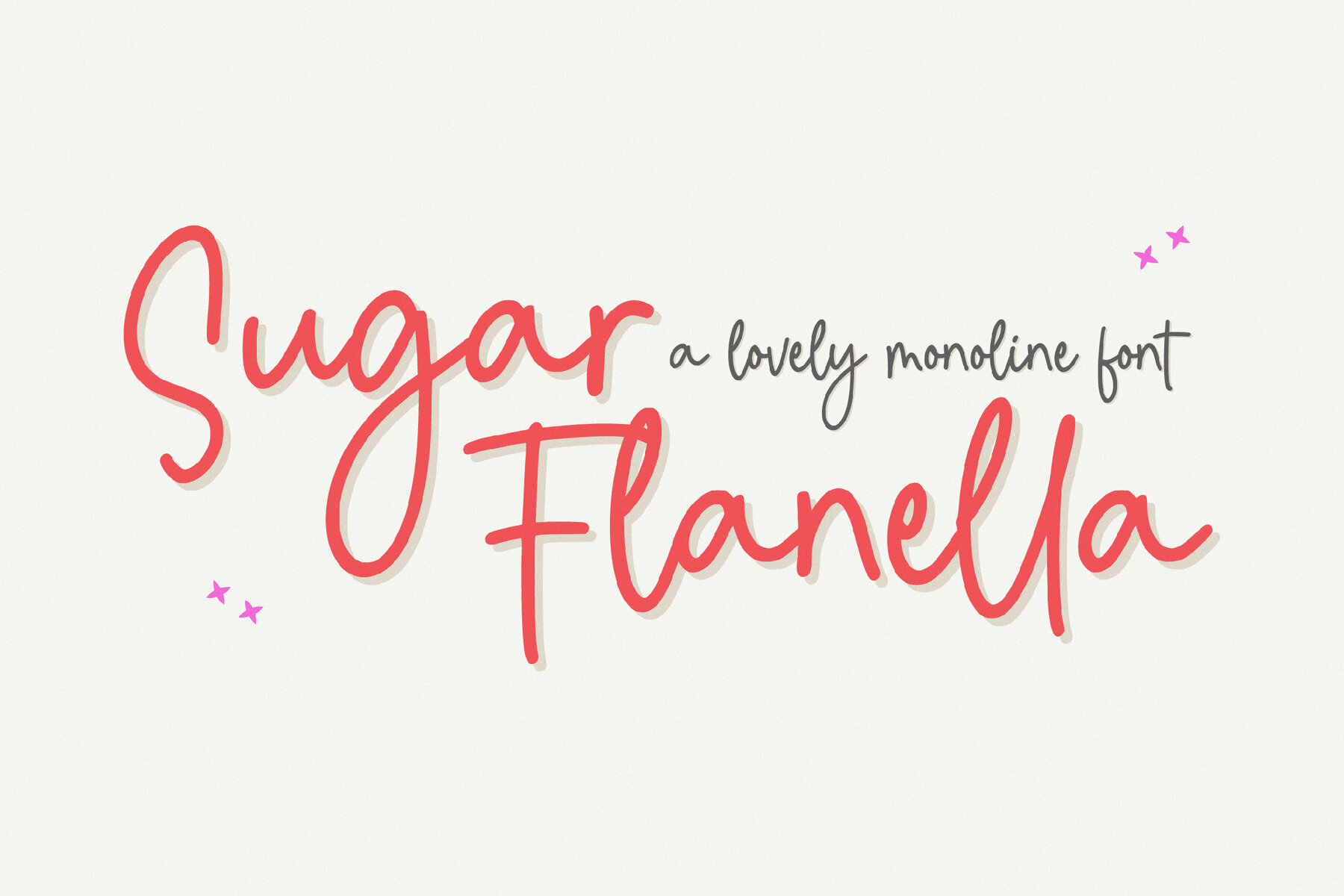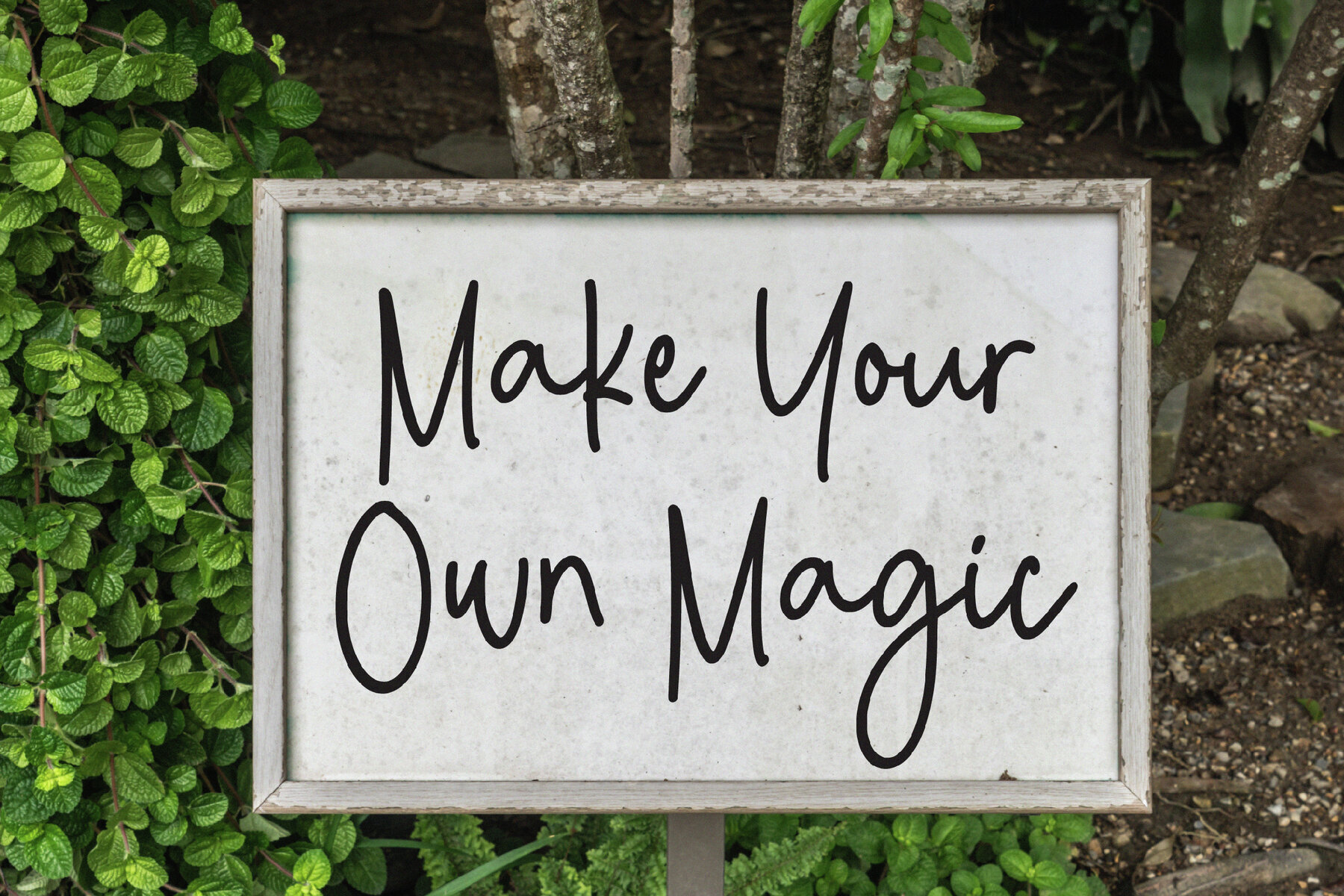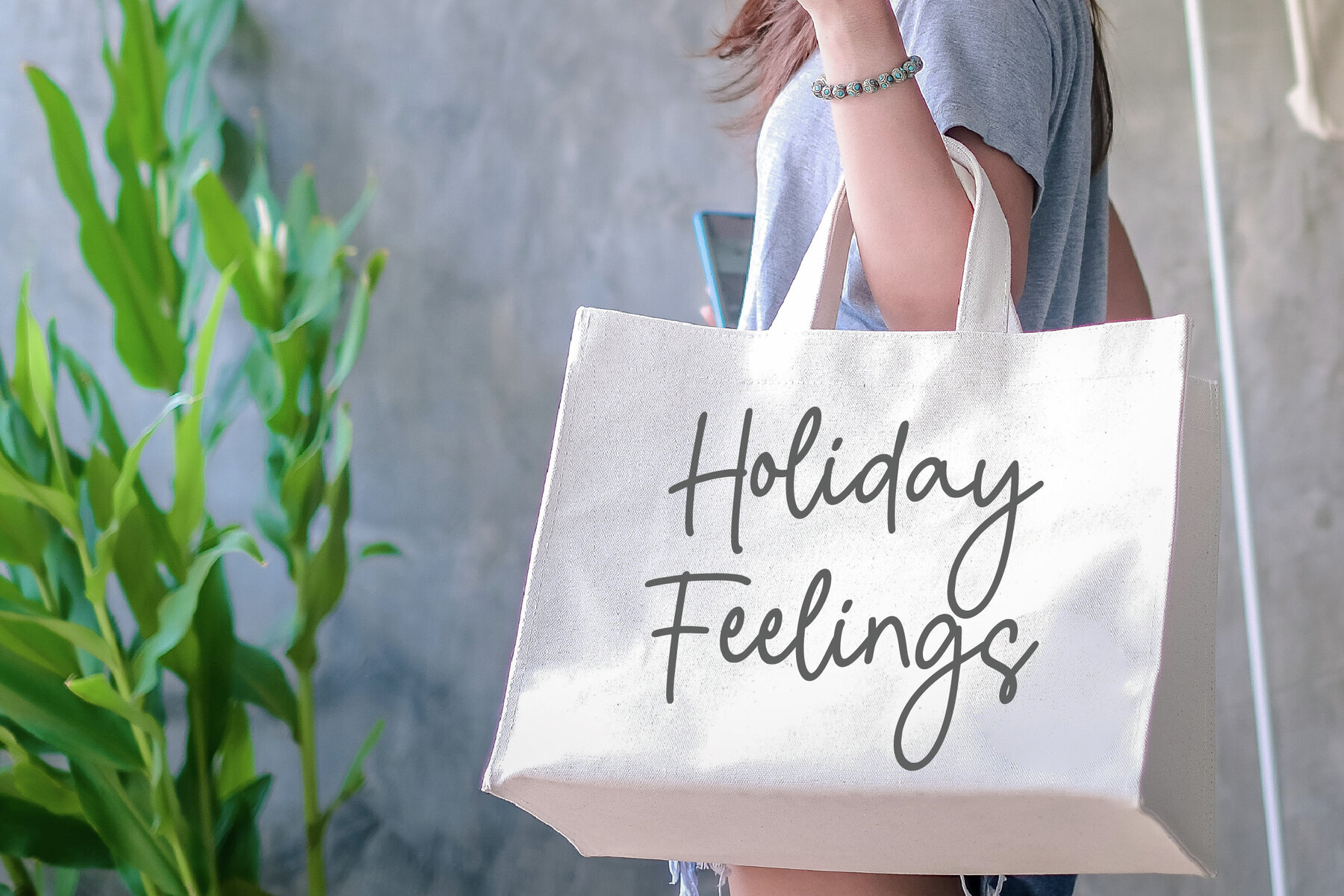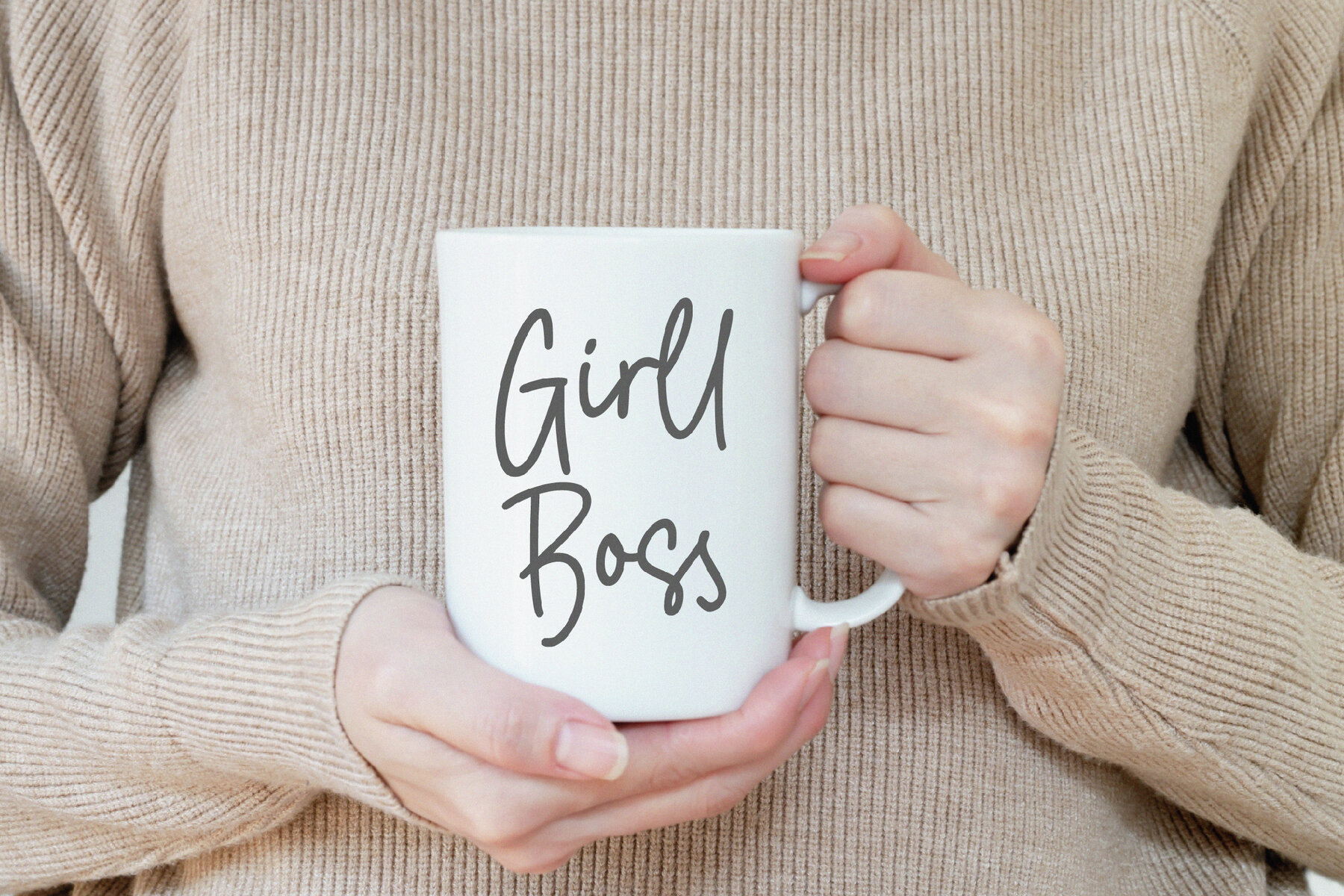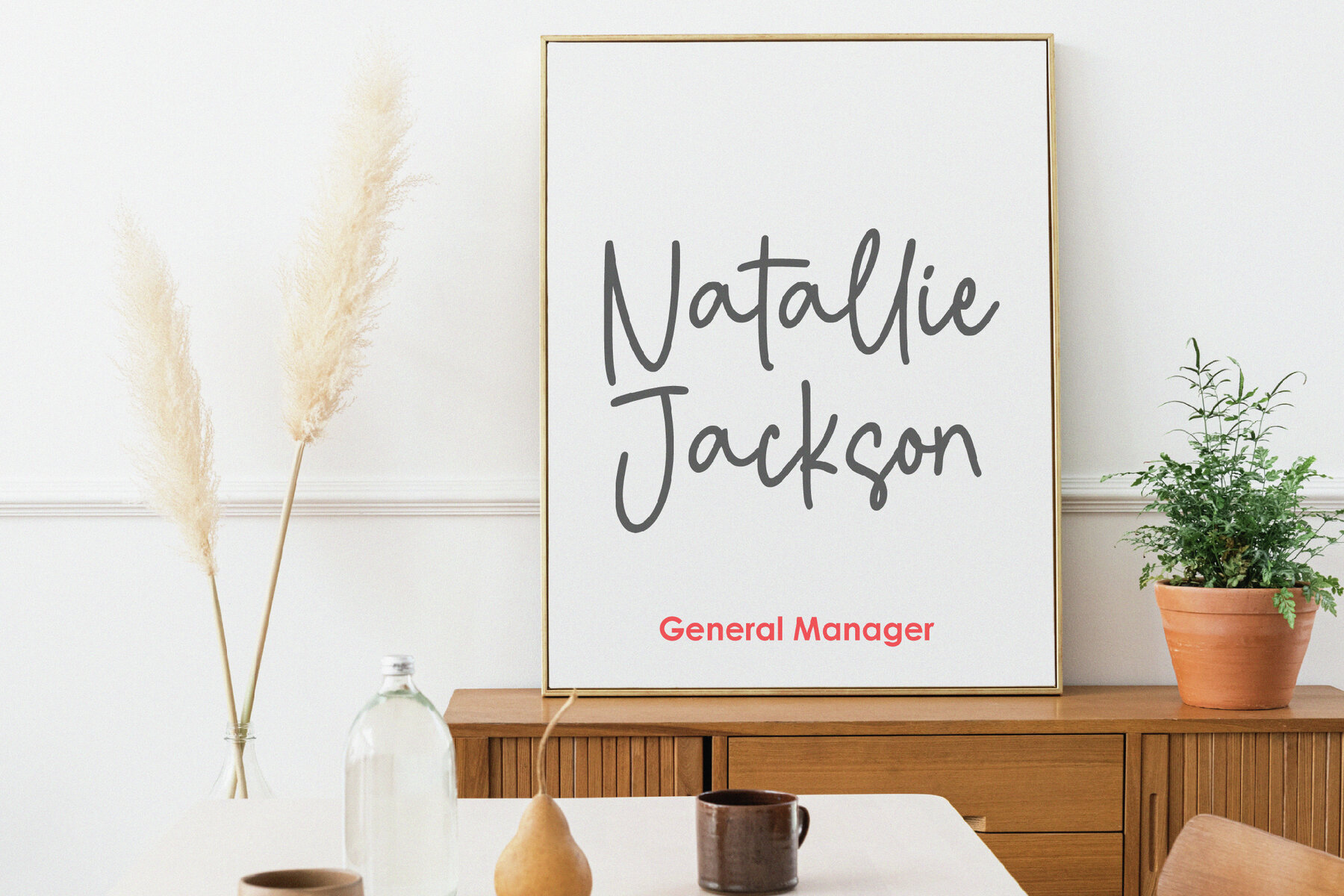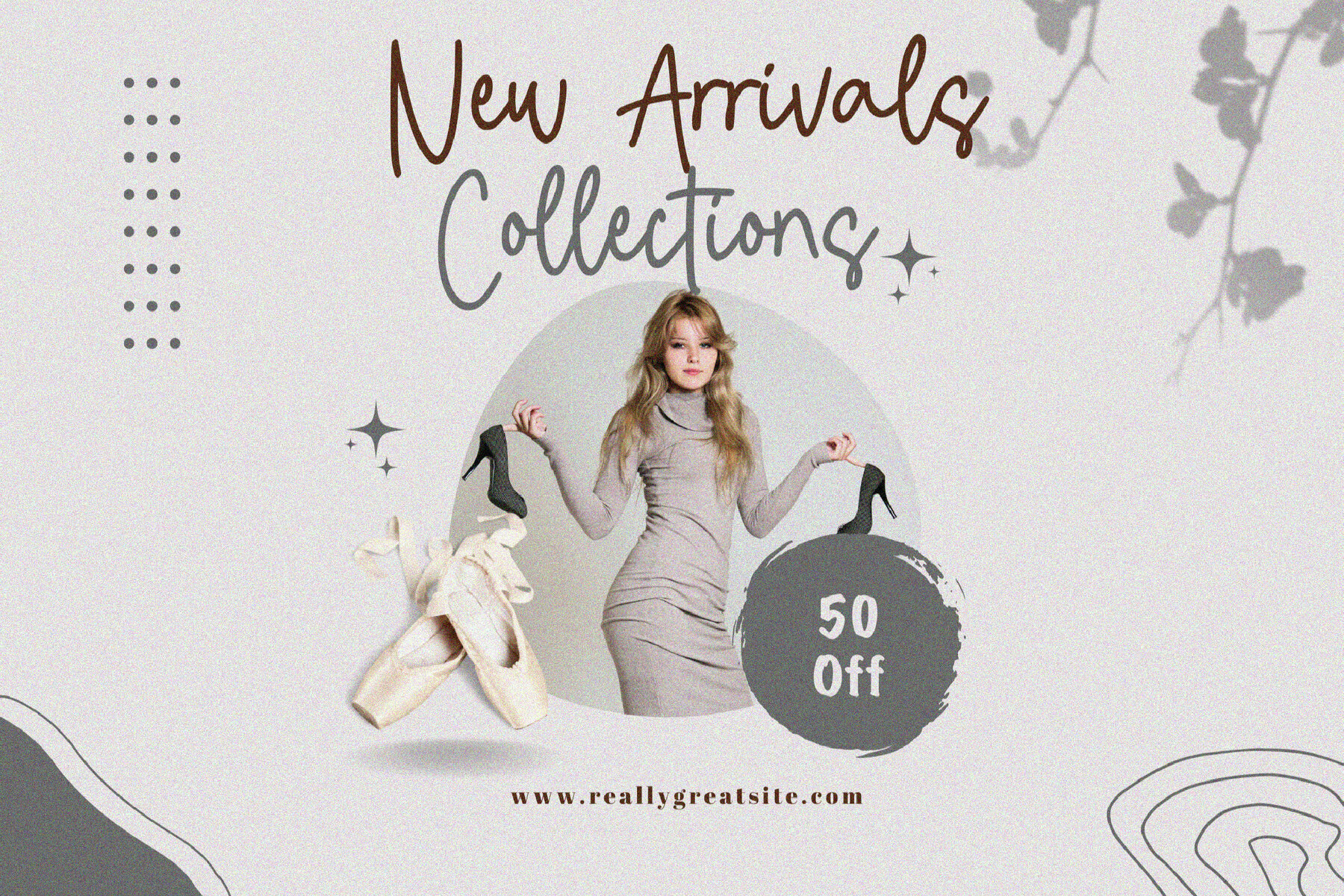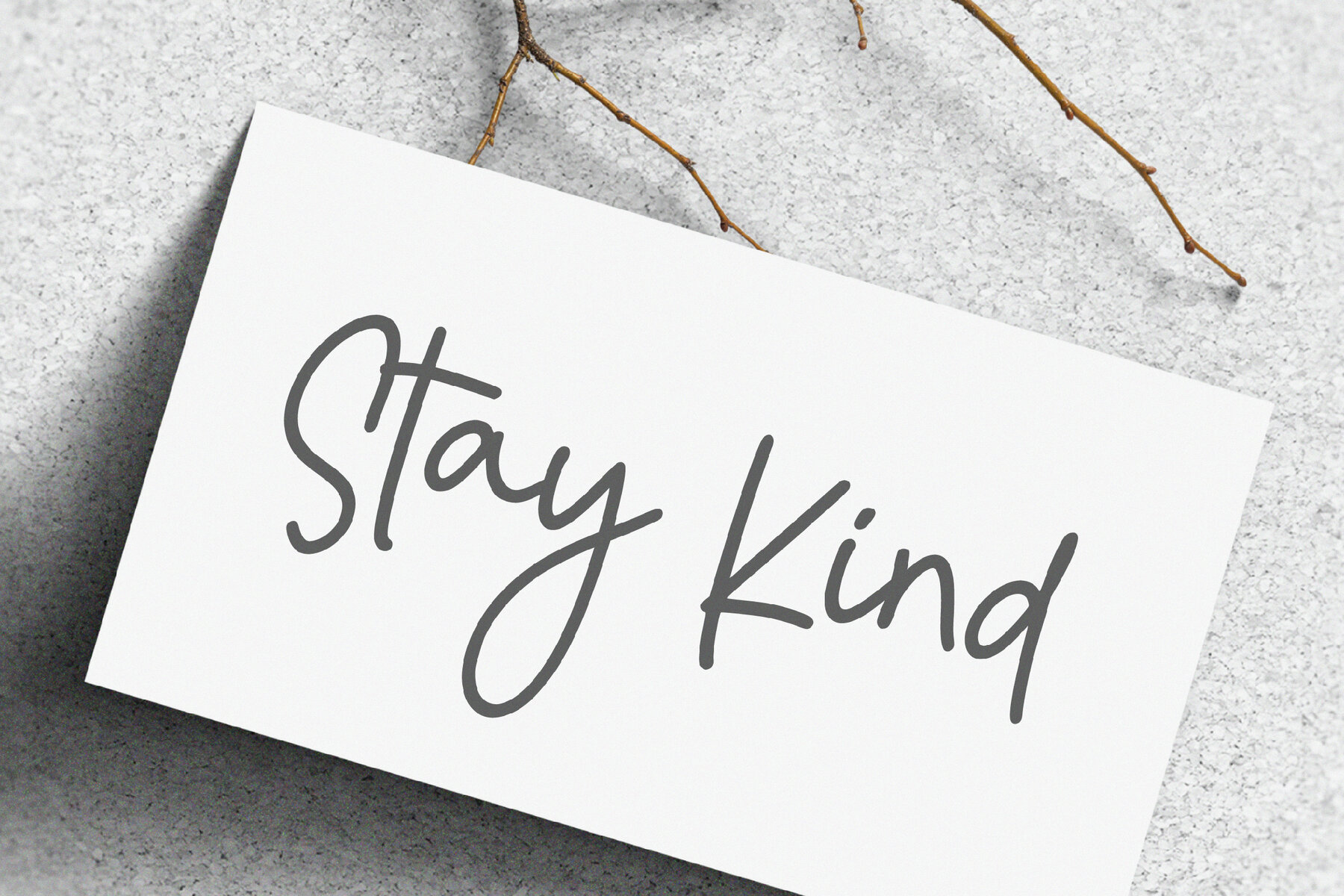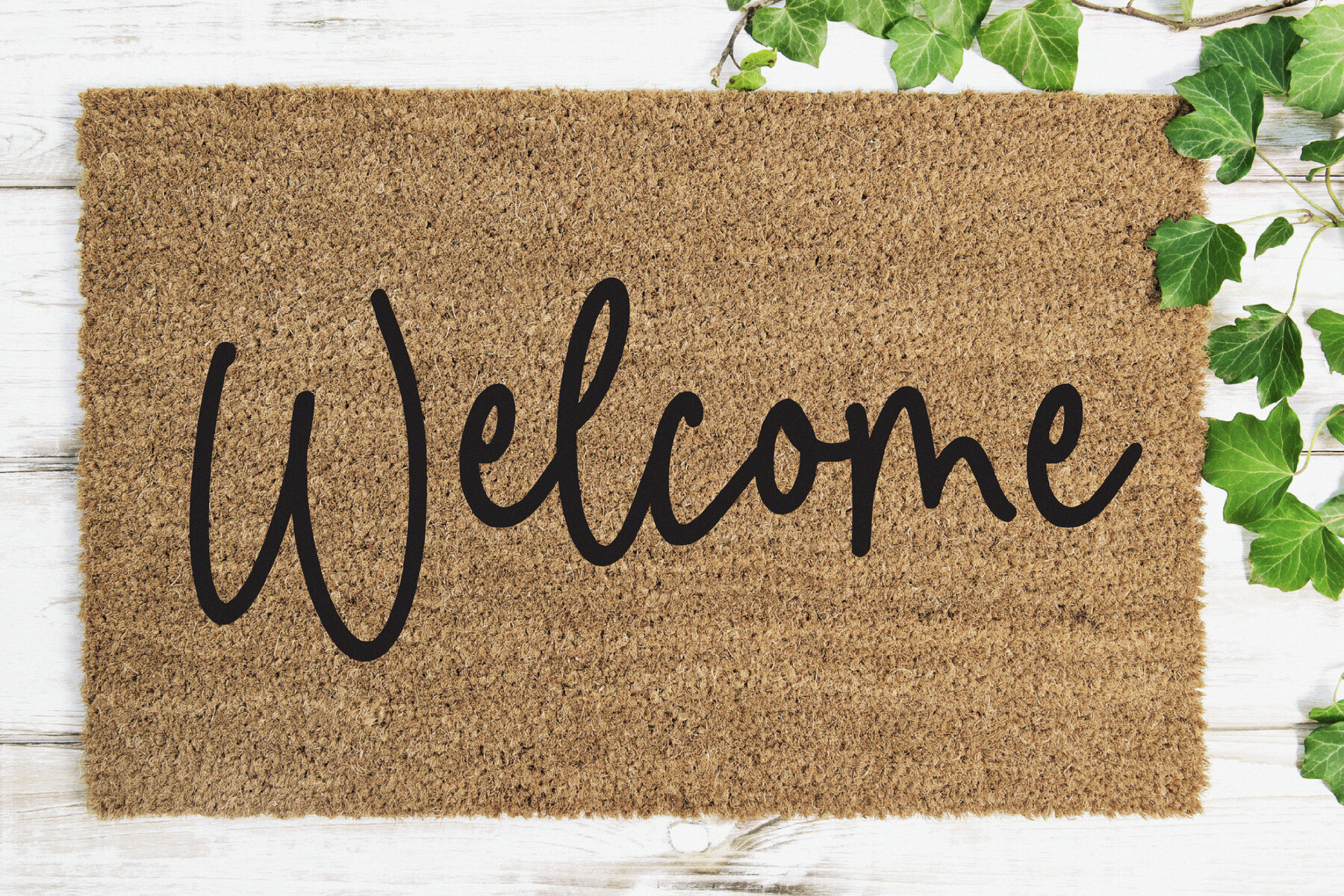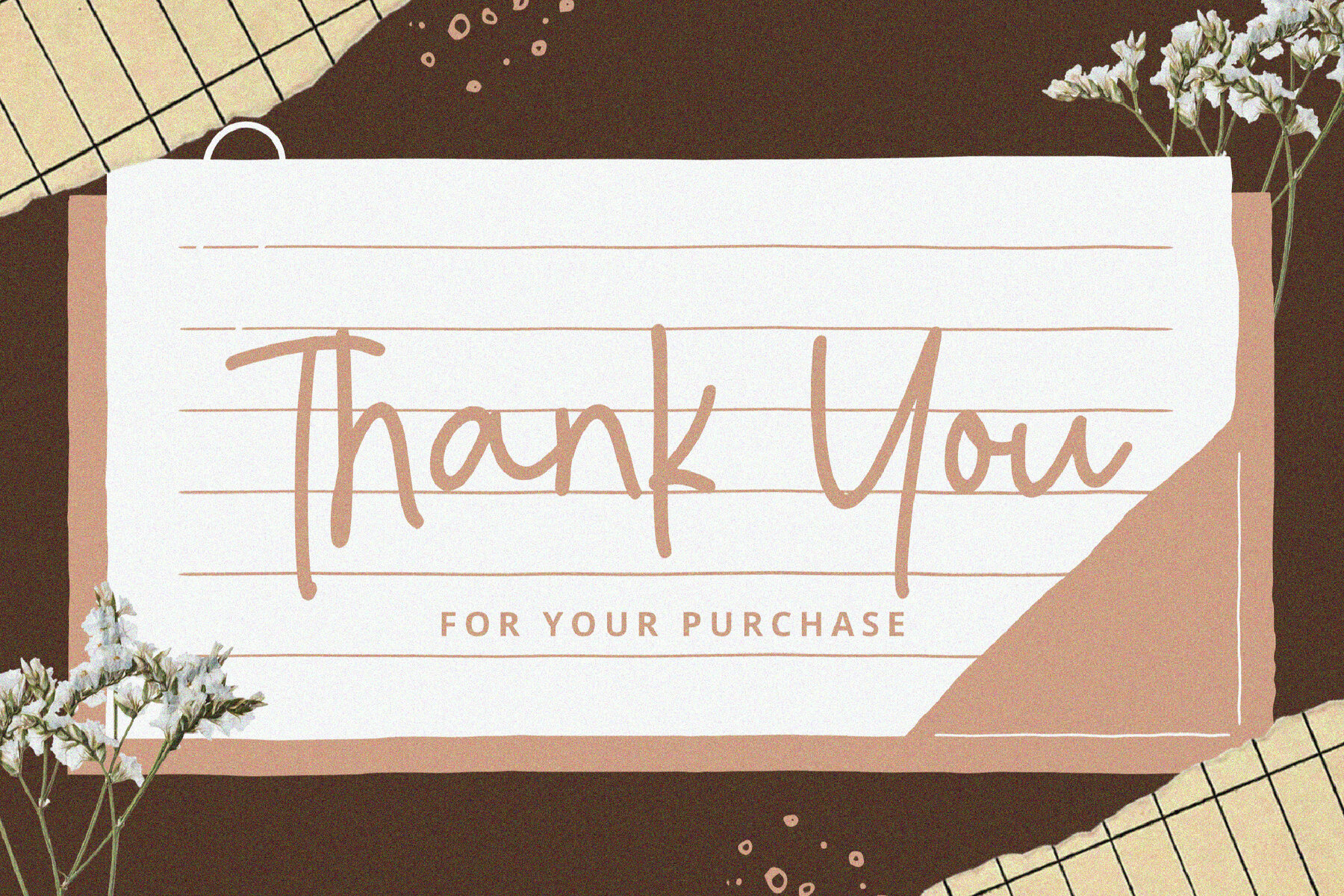
Sugar Flanella Font
Sugar Flanella
Sugar Flanella is a charming monoline script font perfect for chalkboard quotes and educational materials. Its genuine style brings a personal and realistic touch to your designs, making it an excellent choice for projects that require a handwritten aesthetic.
With multilingual support, Sugar Flanella caters to diverse typographical needs. This font is versatile and suitable for a wide range of creative applications, ensuring your designs convey a warm and engaging message effortlessly.